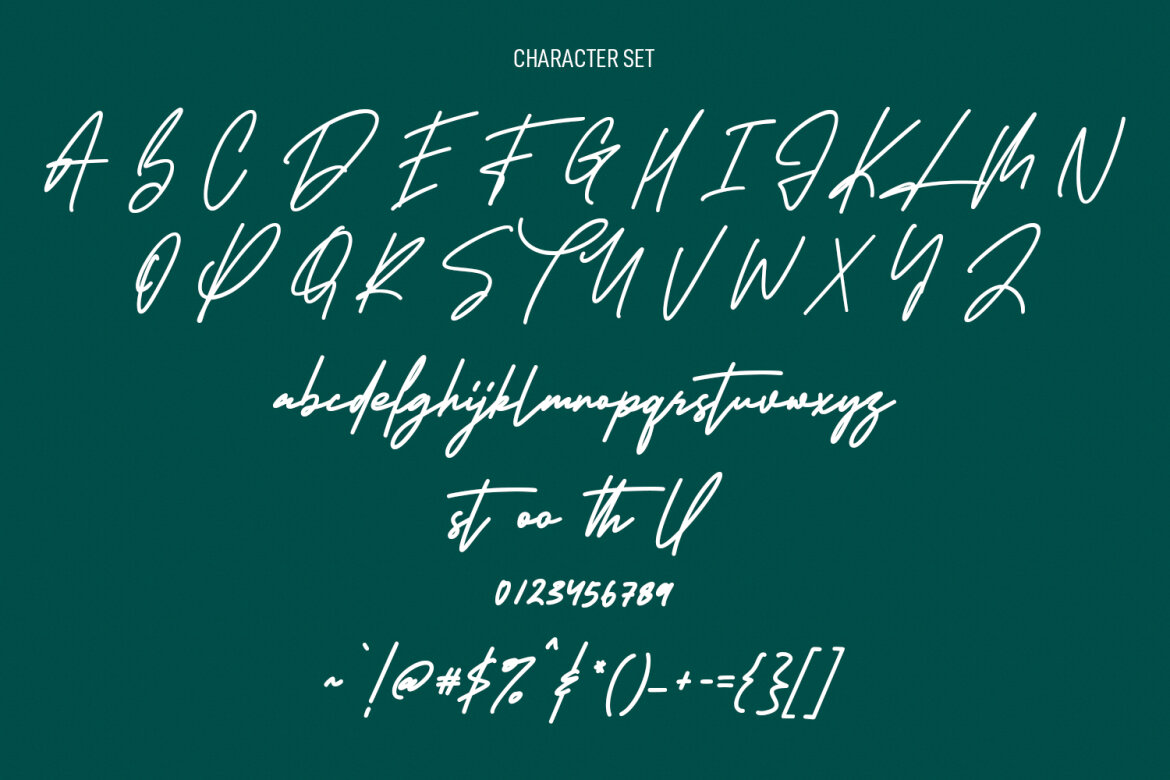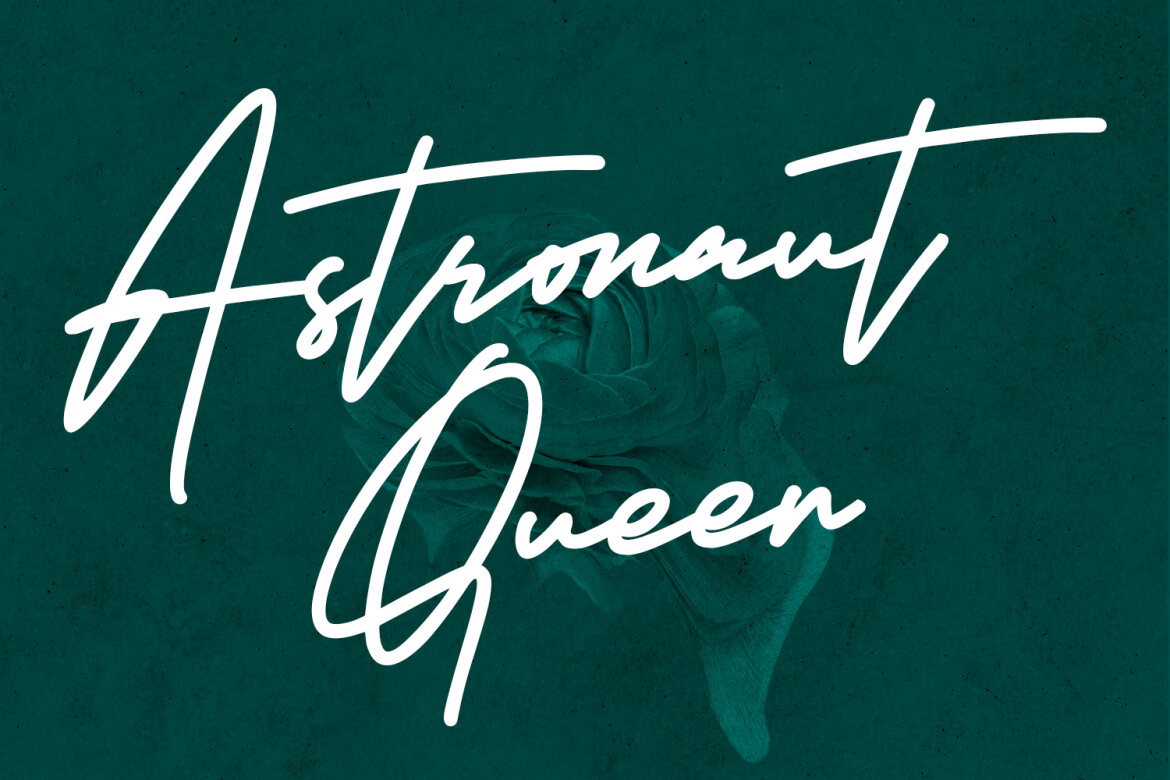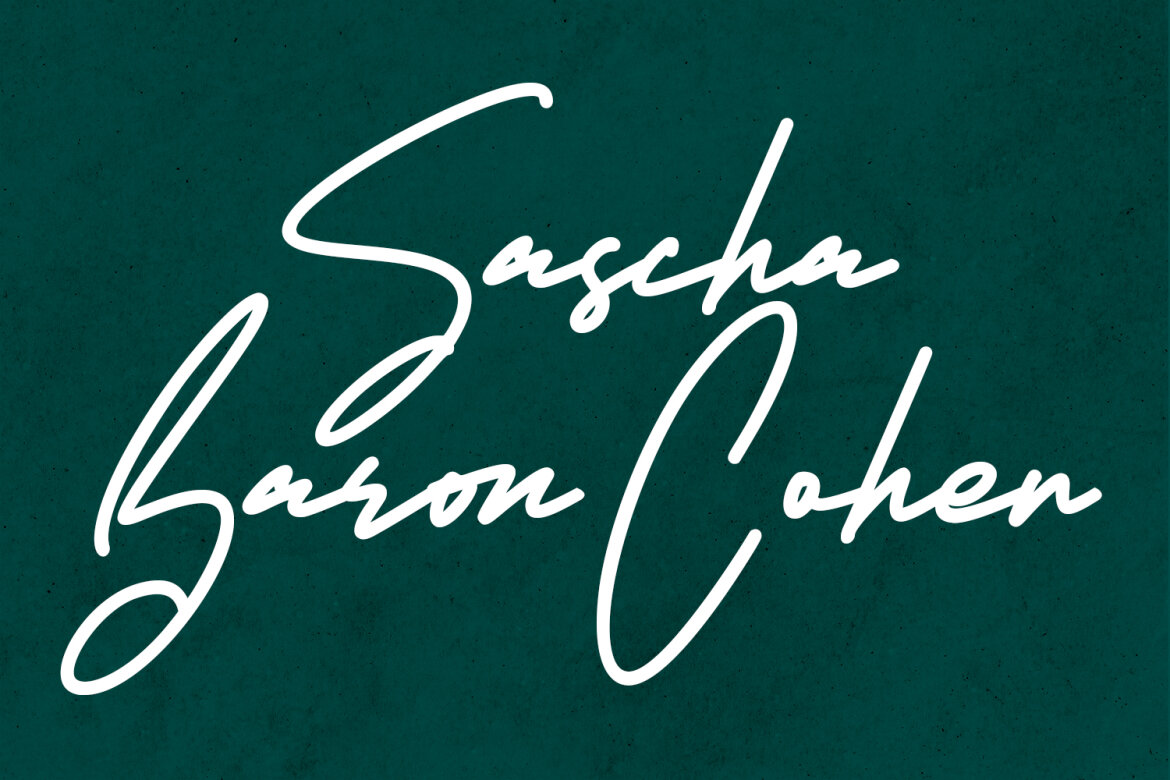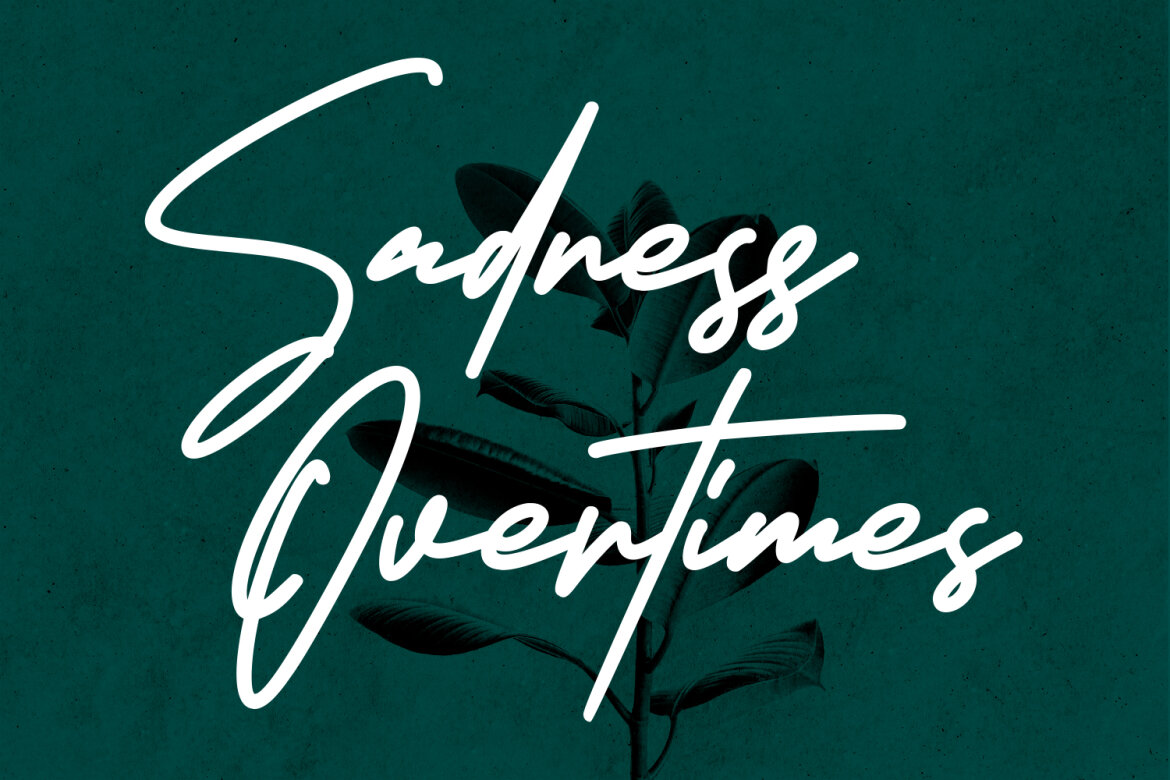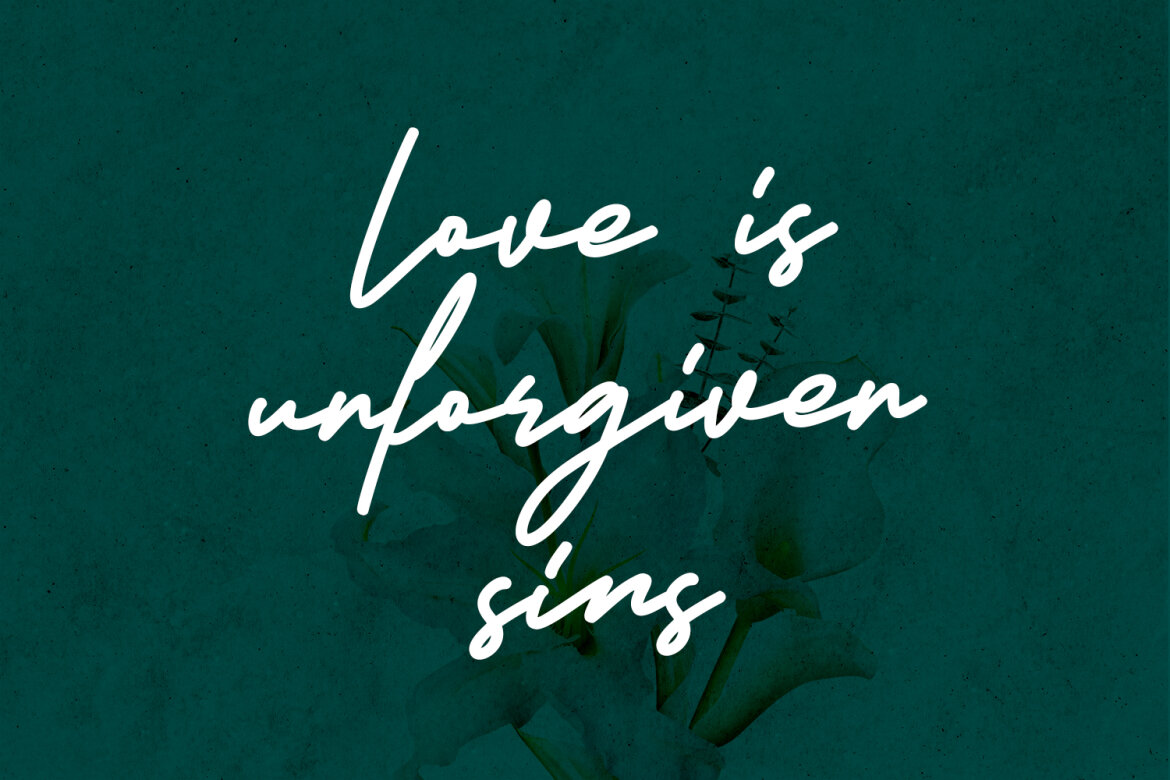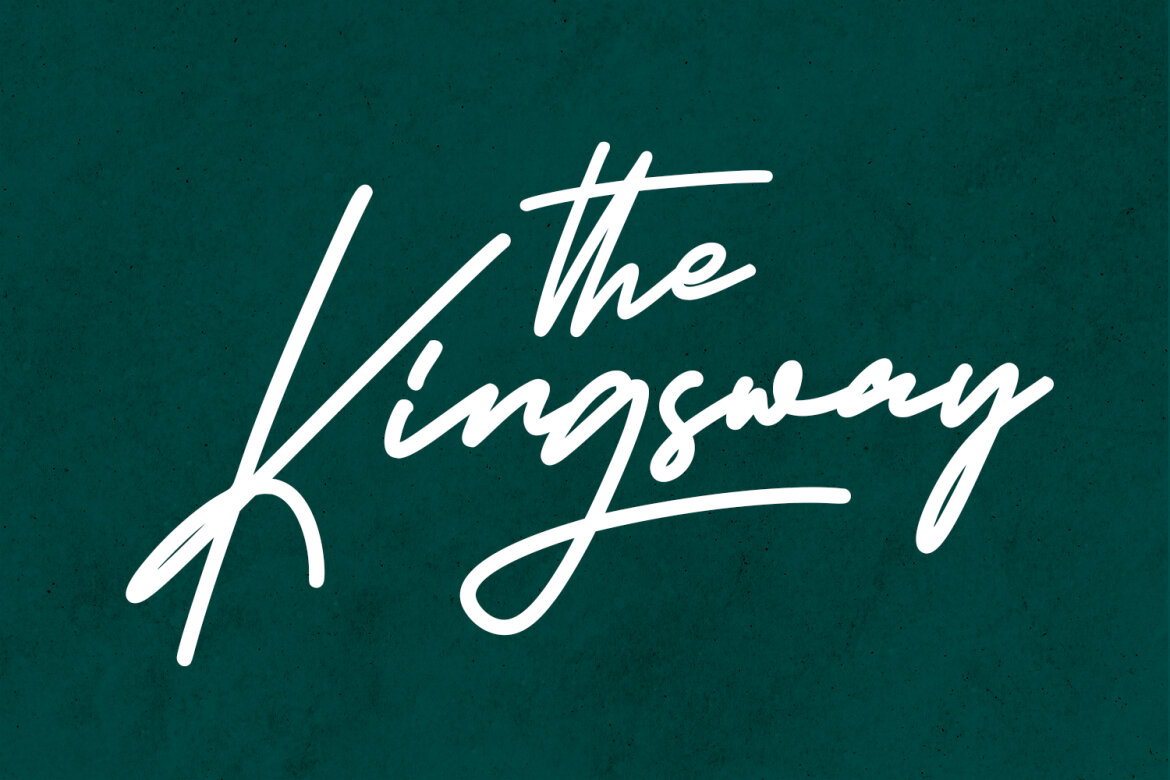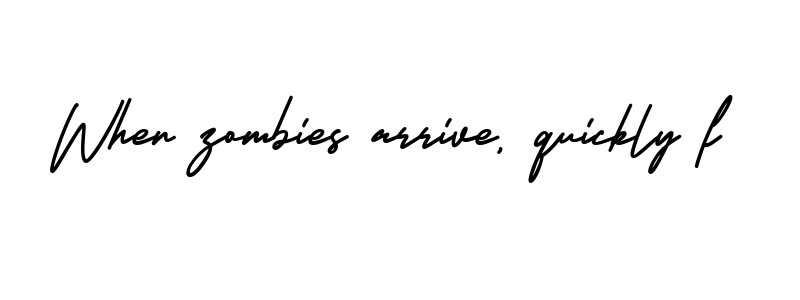
Historikal Signature FREE Script Font
Historikal preview
Historikal
Historikal is a Casual upright Script font. With bold contrast stroke, fun character with a bit of ligatures. To give you an extra creative work. Historikal font support multilingual more than 100+ language. This font is good for logo design, Social media, Movie Titles, Books Titles, a short text even a long text letter and good for your secondary text font with sans or serif. Make a stunning work with Historikal font.